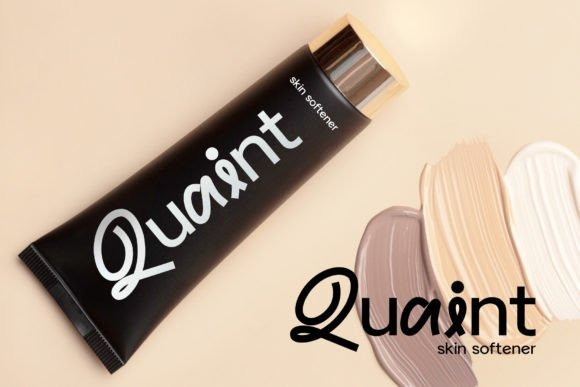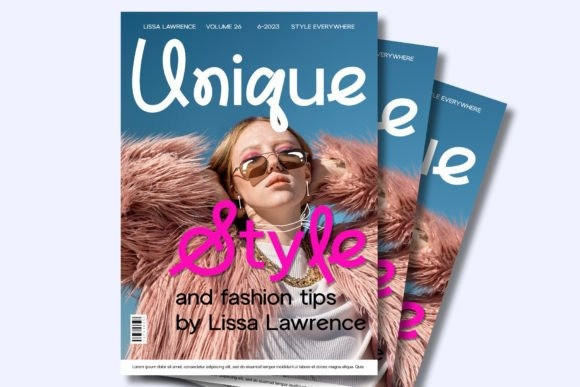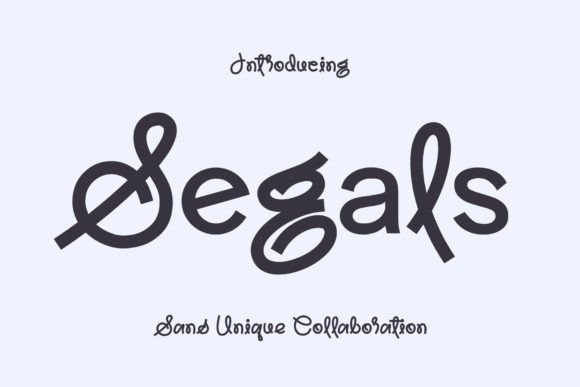
Segals Font
Segals Font is a cutting-edge font with sleek curves and a contemporary design. This font is designed to elevate your project with a sophisticated and captivating look. Segals is ideal for a wide range of creative applications, including logos, advertisements, photography watermarks, stationery, branding projects, magazine layouts, invitations, corporate identities, product designs, labels, business projects, and many other endeavors that require a touch of elegance.